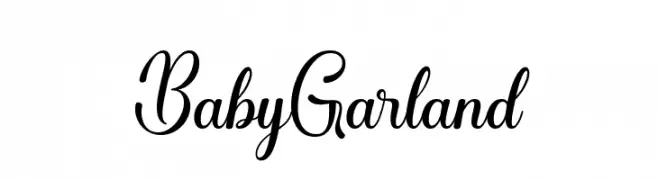
A modern, cursive font with elegant, flowing connections and playful sophistication.
A bold, playful font with thick, rounded strokes and a whimsical touch.
A playful, distressed font with a vintage, whimsical style.
A bold, playful font with rounded edges and a slight italic slant.
A clean, modern sans-serif font with geometric influences.
A bold, decorative font with card suit symbols integrated into certain characters.
A playful, star-adorned decorative font with bold characters.
A bold, segmented geometric font with a modern and futuristic style.
A bold, modern sans-serif font with uniform stroke width and high legibility.
A sophisticated script font with flowing, connected letters and decorative flourishes.
A dynamic script font with elegant, flowing strokes and a handwritten feel.
A playful, handwritten font with a casual and informal style.
A bold, geometric font with a futuristic, industrial style.
A bold, energetic handwritten font with playful, uneven strokes.
A bold, angular font with a futuristic and energetic style.
A tall, slender sans-serif font with a modern and elegant design.
A modern, bold sans-serif font with a sleek and condensed style.
A bold, italicized sans-serif font with a modern and dynamic style.
A sleek, italic sans-serif font with a modern and elegant style.
A sleek, modern sans-serif font with a light weight and narrow characters.
A sleek, light, and italicized font with a modern and elegant appearance.
A modern, semi-bold sans-serif font with a sleek and sophisticated design.
A sleek, semi-bold italic font with a modern and elegant design.
A sleek, modern sans-serif font with thin, elongated letterforms.
A thin, elegant, and modern italic font with sleek, elongated characters.
A playful, handwritten font with smooth curves and a friendly appearance.
An elegant, flowing script font with decorative uppercase and fluid lowercase letters.
A decorative, cartoon-style emoticon icon set with bold outlines.
Outline emoticon icons with bold, circular borders and varied expressions.
A bold, playful handwritten font with rounded, slightly irregular characters.
A bold, dynamic handwritten font with expressive strokes.
A bold, brush-style font with an energetic and handcrafted appearance.